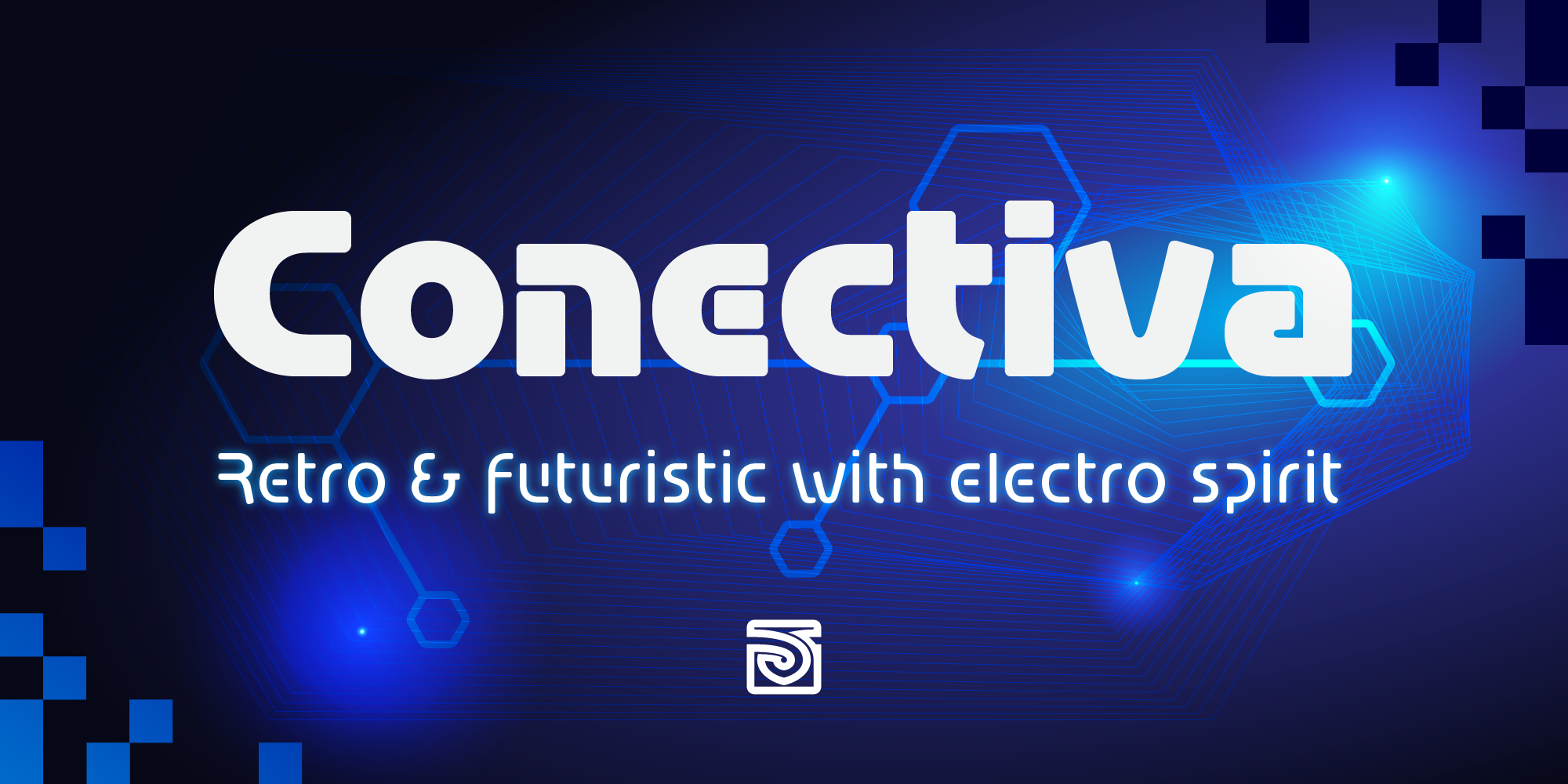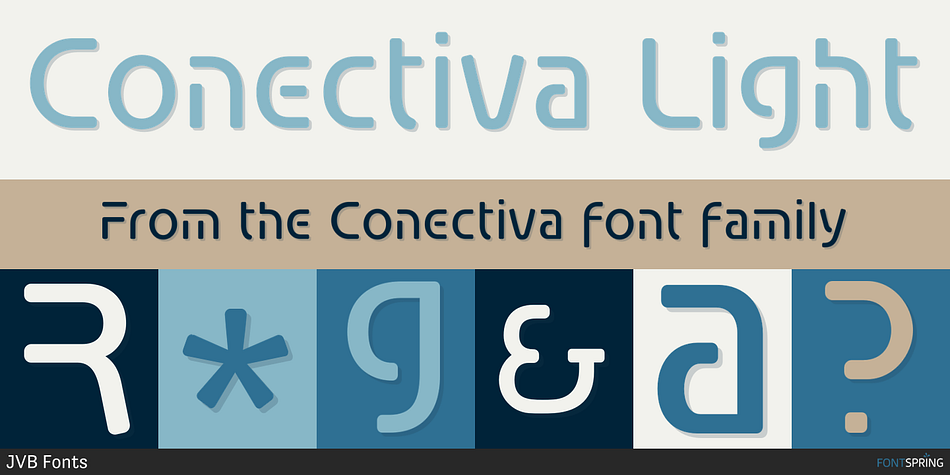
Conectiva Light
Designed by John Beltrán, Conectiva is a display sans and stencil font family. This typeface has twelve styles and was published by John Vargas Beltrán.
This font family with cyber, spatial, and virtual connotations offers a decisive futuristic and techno spirit. Inspired by geometric forms from visual tendencies in the early 2000s, it was used once in corporate identity. Originally created in 1998, it remained unpublished by its author until year 2010. With one alternate for H and more diacritics and ligatures and extended range glyphs, Conectiva can be used in titles and display text that require a futuristic and dynamic style. Conectiva has been arranged and improved with more glyphs and new OpenType features (Fractions, discretional and standard ligatures, slashed zero and more new stylish alternates). Multilingual, Conectiva covers over than 200 languages, including new diacritics and new stylish second set for /a/ and its diacritics. This upgrade for 2024 includes 5 new italic weights, Uppercase German eszett, schwa (upper & lowercase) and new diacritics were added. Recommended for games, presentations, or any graphic pieces that reveal and need futuristic, techno, and/or Sci-fi style.